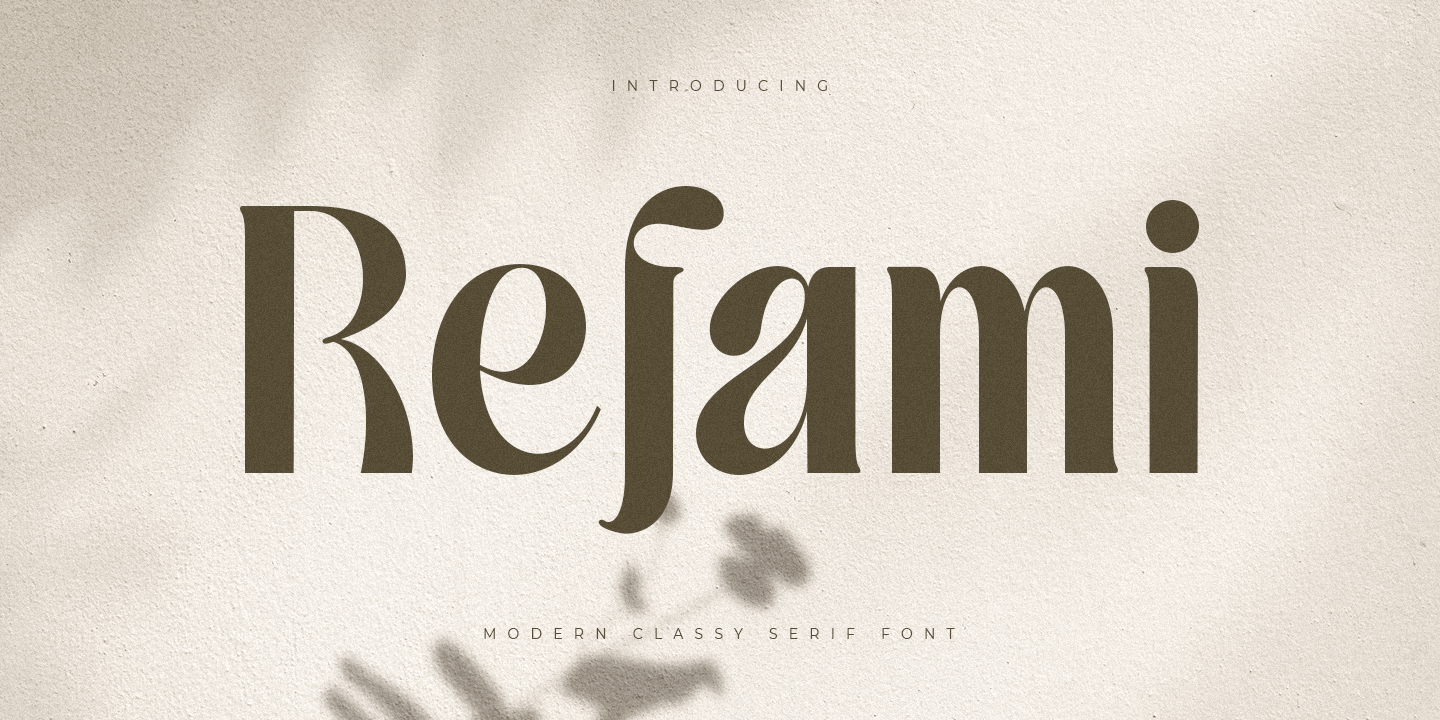
Refami Font is perfect for family-focused business branding, community center communications, household product packaging, parenting blog headers, family restaurant menus, childcare facility signage, home organization company materials, family therapy practice logos, neighborhood event promotions, and heartwarming family lifestyle marketing campaigns.
What makes Refami Font so exciting is its remarkable ability to capture the warm embrace and unconditional love of family bonds through tenderly crafted letterforms that seem written with the gentle care of parents documenting precious memories and the patient wisdom of grandparents sharing stories that connect generations. This font embodies the essence of family unity and domestic harmony, featuring comfortably rounded characters that appear designed to welcome everyone into the circle of belonging and create spaces where every family member feels valued and cherished. The nurturing letter shapes create an atmosphere of safety and unconditional acceptance, making every word feel like a loving reminder that home is wherever family gathers with open hearts and shared dreams.
The Refami Font family includes Light, Regular, Medium, Bold, and Warm variations, along with family-friendly symbols and community decorative elements. Each style maintains the font's distinctive familial character while offering versatility for different household applications, from gentle parenting advice text to welcoming headlines that celebrate the joy and strength found in family connections and community support.
This heartwarming typeface brings authentic family-centered aesthetics to contemporary design projects. The Refami Font Free Download provides designers with an exceptional tool to create memorable brand identities that communicate love, togetherness, and family-first values. Whether you're developing family service branding, designing community organization materials, or creating household product communications, this font delivers unmatched warmth and family authenticity.
The lovingly crafted letterforms in Refami Font feature gentle curves and balanced proportions that mirror the patient rhythm of family life and the careful attention that loving parents give to creating environments where children can grow and thrive surrounded by support. Each character has been designed to maintain perfect readability while expressing the dependable strength and unwavering commitment that form the foundation of healthy family relationships. The font's distinctive personality makes it ideal for applications requiring genuine emotional connection and family-oriented appeal.
Family-focused professionals appreciate how Refami Font effortlessly communicates trust, reliability, and genuine care while appealing to parents and family members seeking products and services that understand and support the unique challenges and joys of family life in all its beautiful complexity. The comprehensive character set includes family symbols, home decorations, community elements, and extensive international language support, ensuring global compatibility while preserving its distinctive family-centered identity. This makes it an invaluable resource for family businesses, community organizations, childcare providers, and any organization seeking typography that embodies the fundamental human values of love, support, protection, and the irreplaceable bond that makes family the foundation upon which individuals build the confidence to face the world knowing they always have a place where they belong unconditionally.